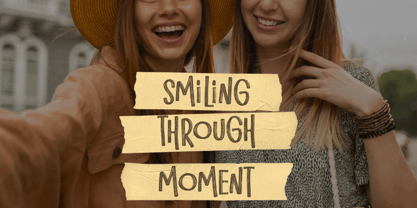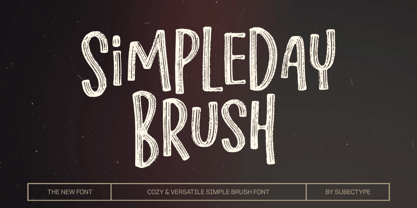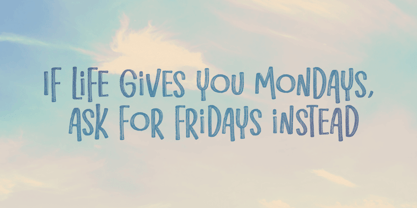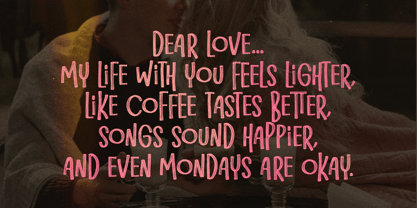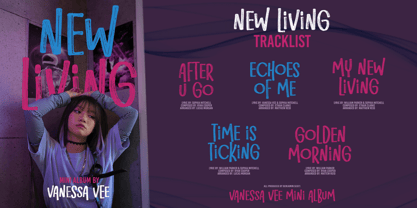
Simpleday Brush
by Subectype
The Simpleday Brush Font Family was designed by Rangga Subekti and published by Subectype. Simpleday Brush contains 1 styles.
Say hello to "Simpleday Brush". This brush font brings a fun and cute vibe, perfect for adding a personal touch to your creative projects. With its playful strokes and casual flow, it feels like handwriting full of joy and energy.
Ideal for daily vlogs, lifestyle content, quotes, and social media posts, this font gives your design a friendly and approachable look. Whether you’re creating thumbnails, captions, or branding, it’s the perfect choice to make everything feel lighthearted and cheerful.
Designers: Rangga Subekti
Publisher: Subectype
Foundry: Subectype
Design Owner: Subectype